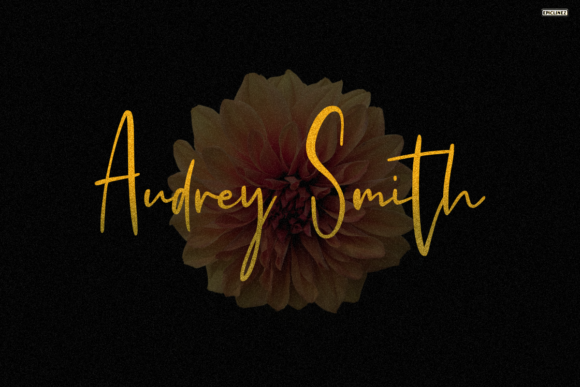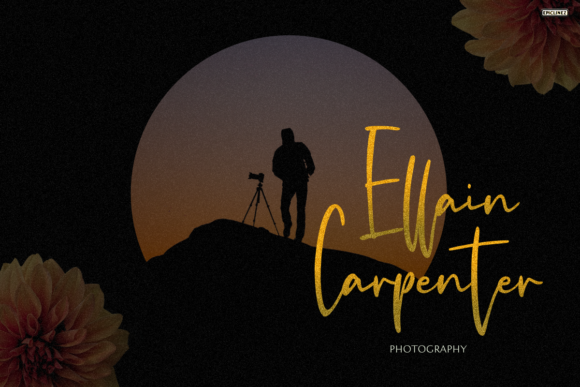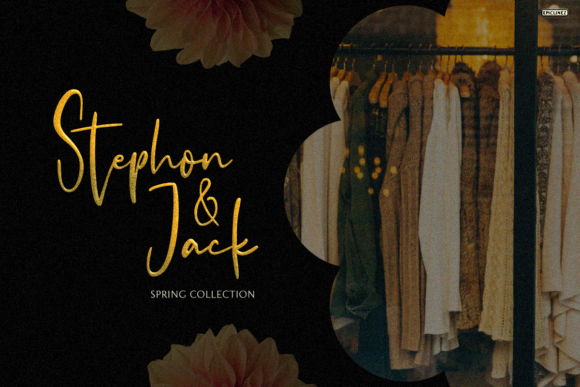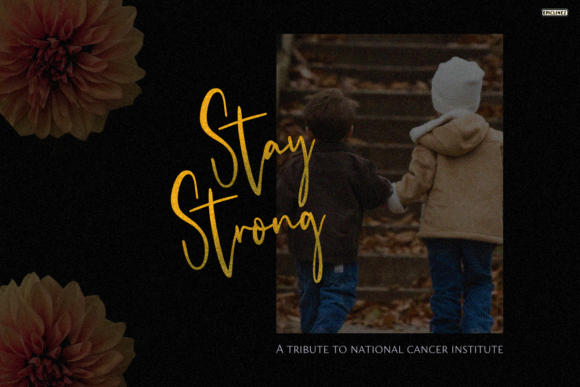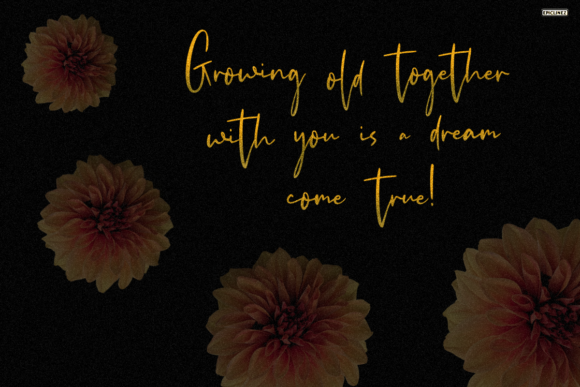
Introduction to Moonlight in Tokyo Font
Moonlight In Tokyo is an authentic signature script font.
This handwritten beauty is suitable for high-end, sophisticated branding or for simple, memorable Instagram quotes .